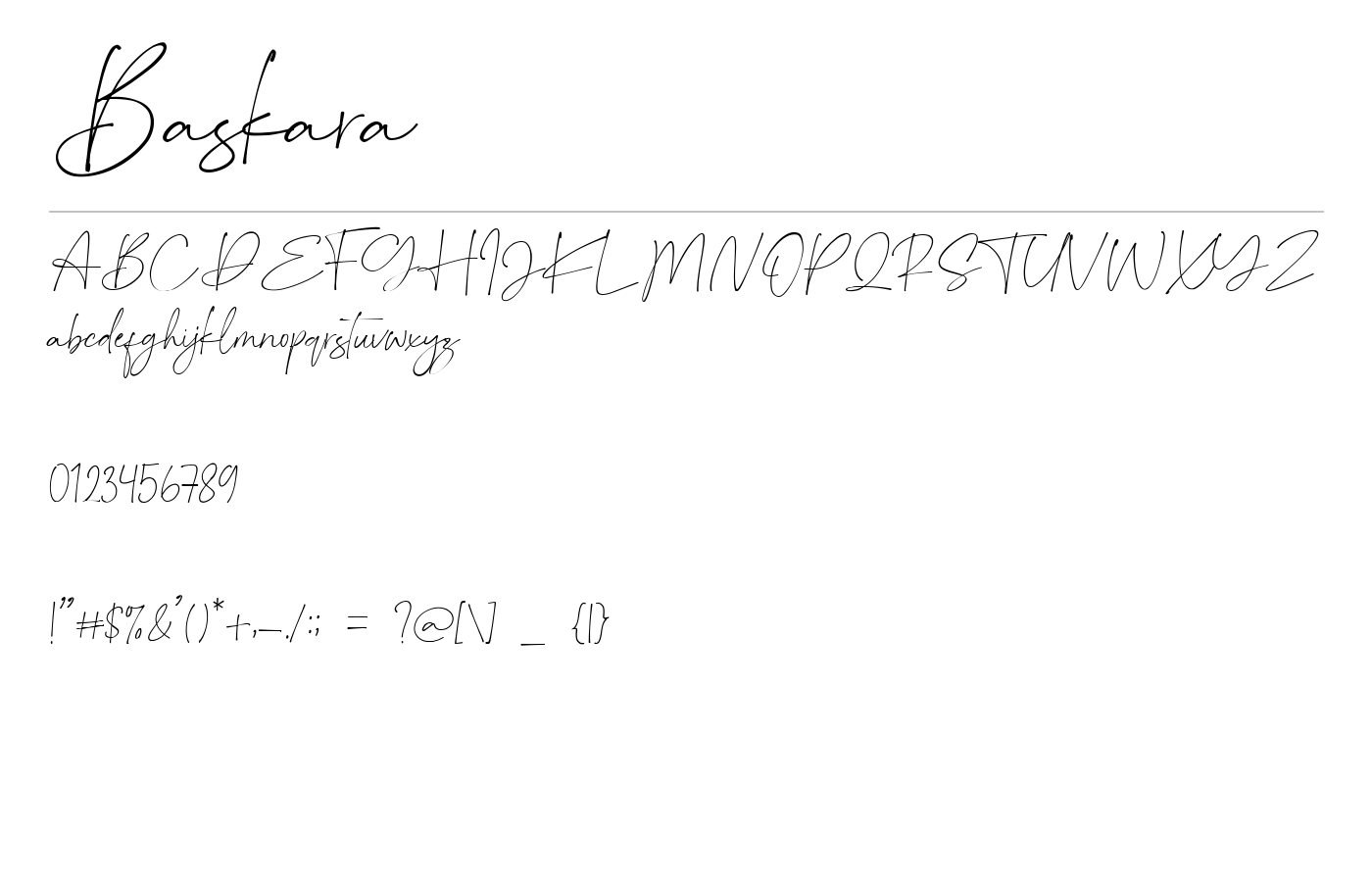
Baskara is an elegant, handwritten script font with a slender and delicate stroke that conveys a personal, artistic feel. Its tall, flowing letterforms with subtle variations in thickness create a sophisticated yet approachable style perfect for branding, invitations, and creative projects that seek a graceful, modern touch. This font works beautifully in designs that require a refined hand-drawn look, making text feel warm and unique.
Baskara Font
| Designer | Agam Rahmadan |